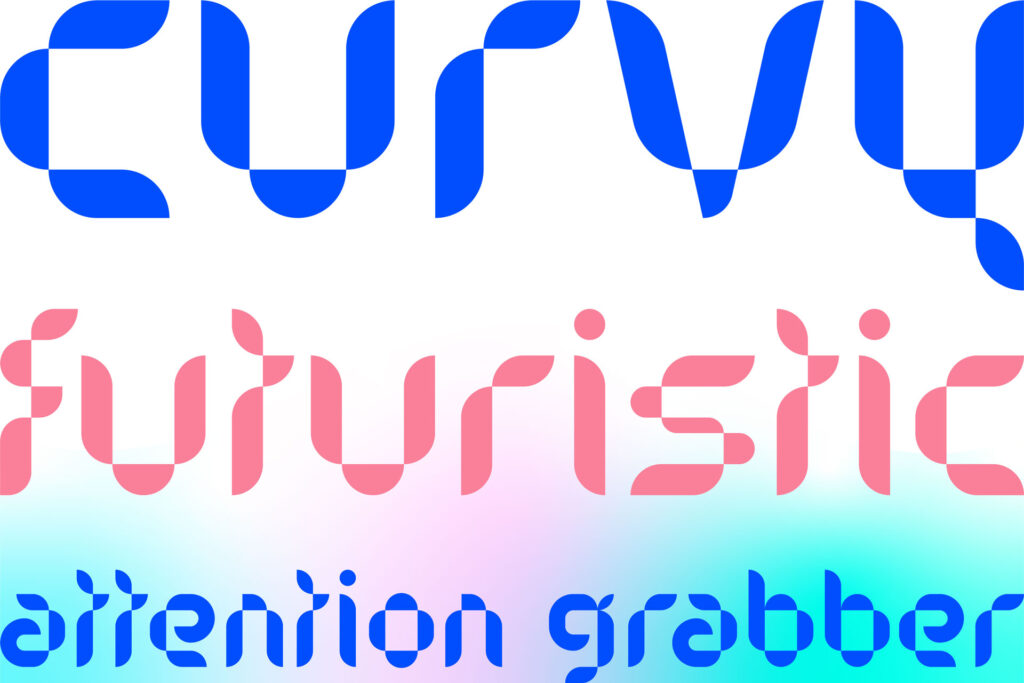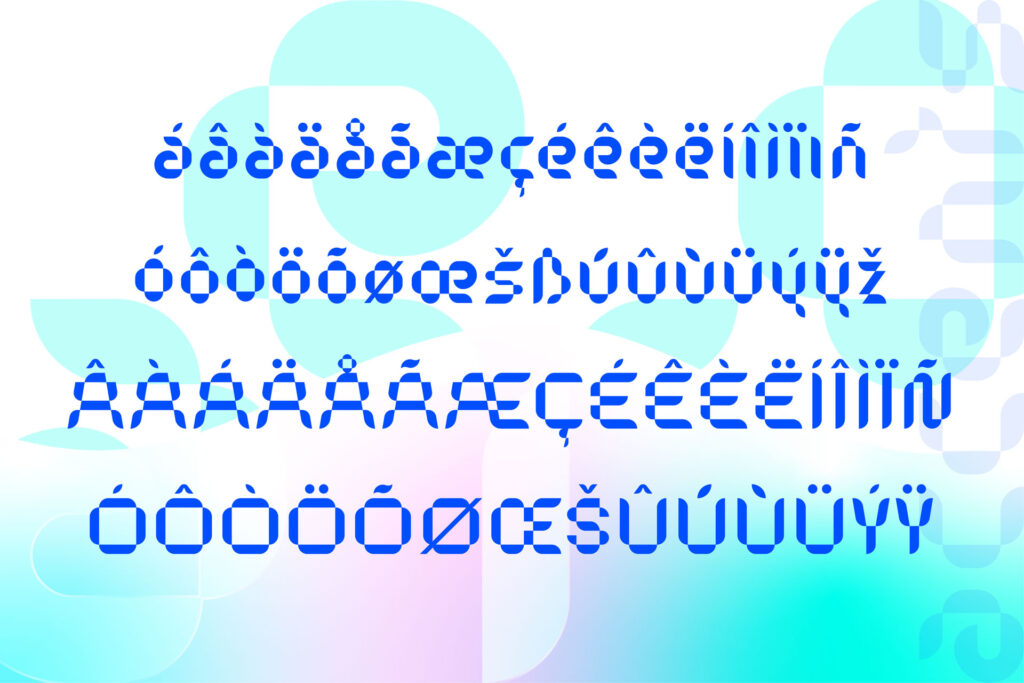
AeroBlend Display Font
AeroBlend is a futuristic sans-serif display font, curvy and ready to grab the attention of the viewer. Each letter is designed from continuous lines, and stems, bars, strokes, ears and other elements of the letters ar made from overlapping shapes and negative spaces.
This font is helpful in brand design, easily fit for logo design, but it also does a great job at being used for headlines and big titles that are meant to attract a viewer's attention.
Comes with complete latin alphabet and accents, available in one weight, and it's quite impressive when used as stroke only (not a style, you'll have to get creative with it here - but see gallery examples).